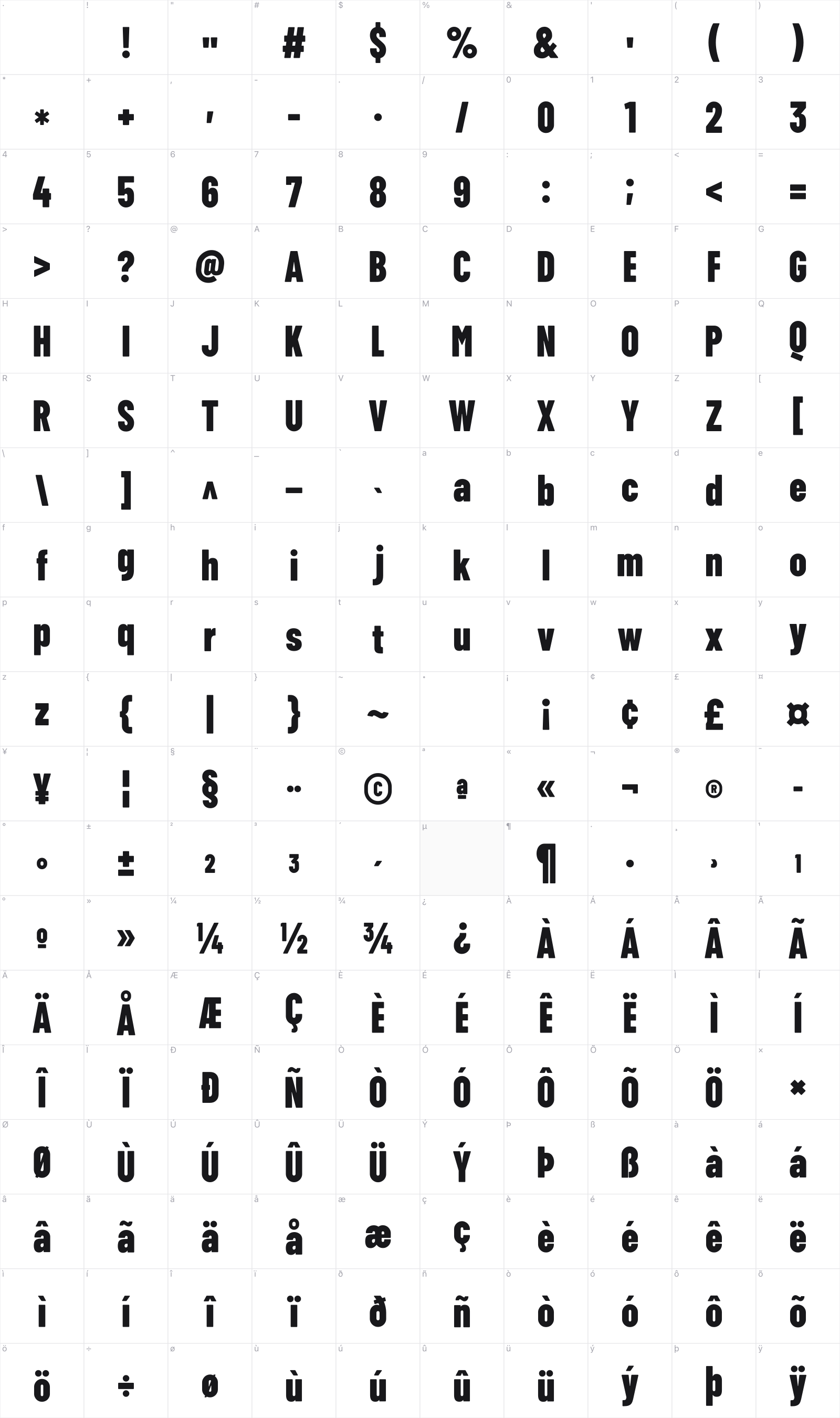
ZT Floogn
ZT Floogn is a heavy condensed grotesque built for maximum impact at headline sizes. Its tall, narrow proportions and near-black weight let it pack a typographic punch even in limited horizontal space. A solid choice for posters, magazine covers, and bold branding work.